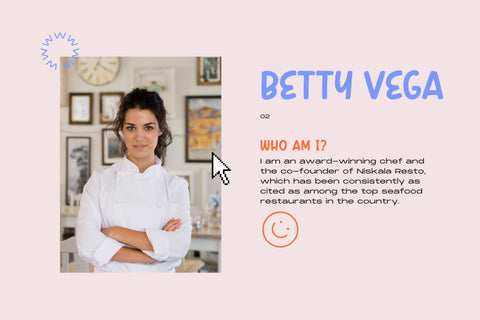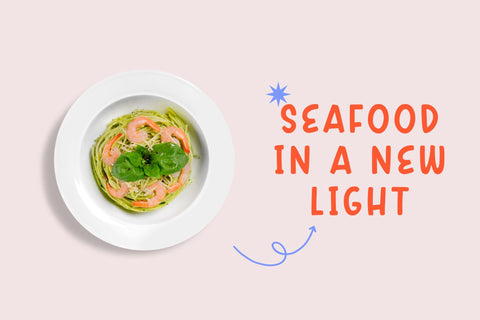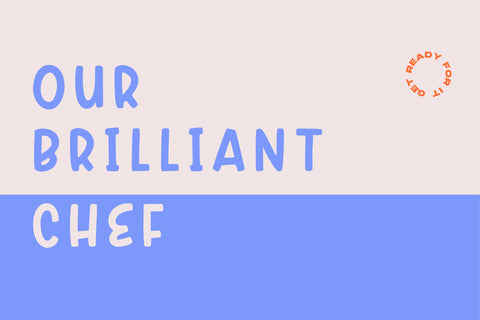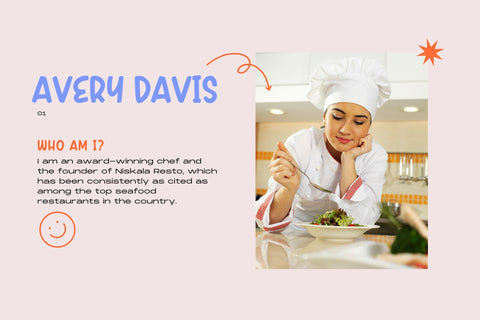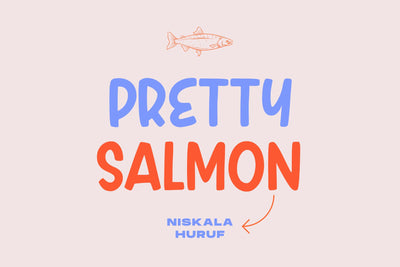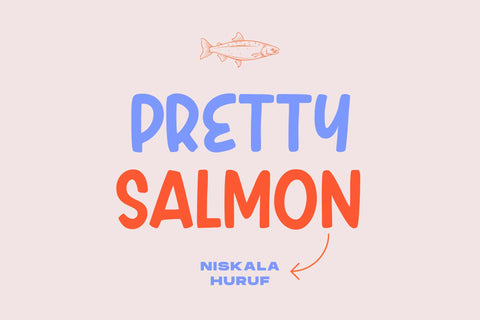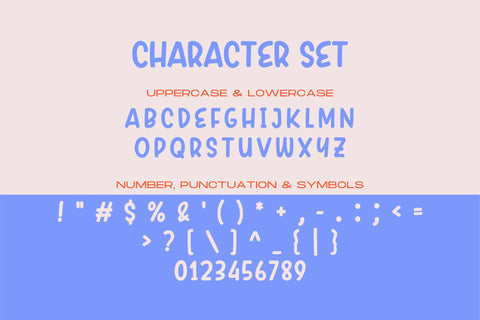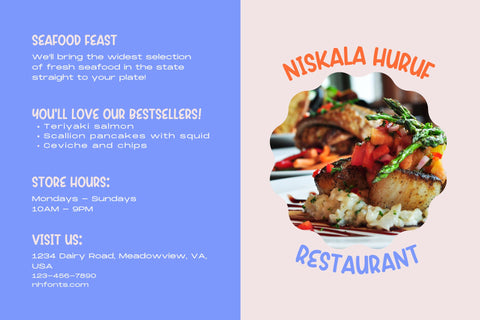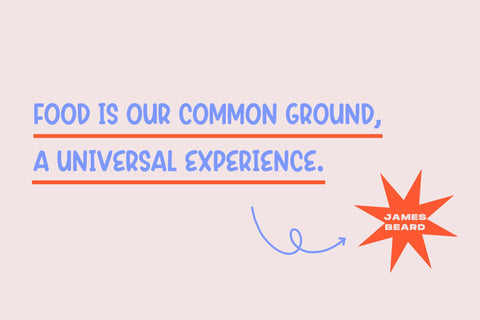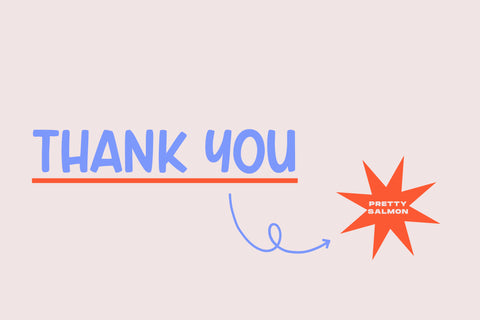
Pretty Salmon - a Display Font
Pretty Salmon is a display font that can be used for all chalkboard quotes or teaching material! Its authentic look and feel will add a personal and realistic feel to your designs.